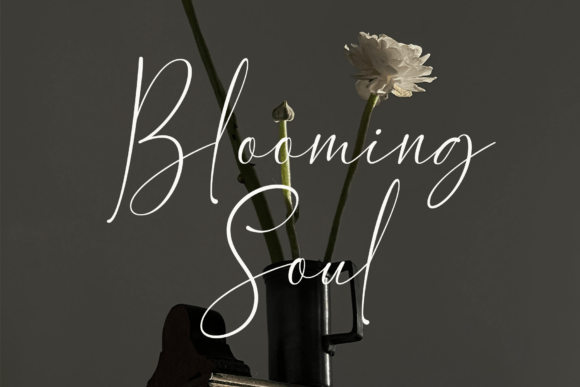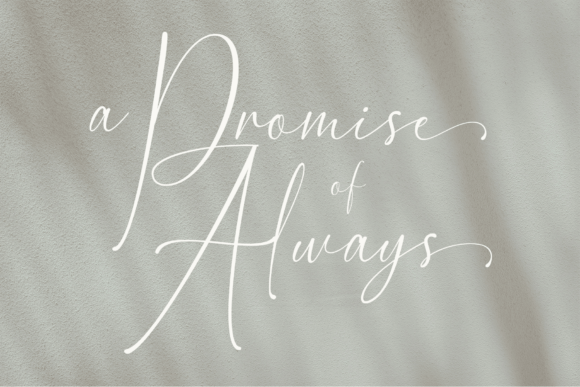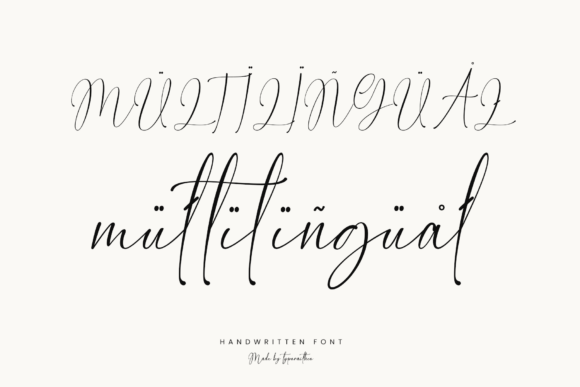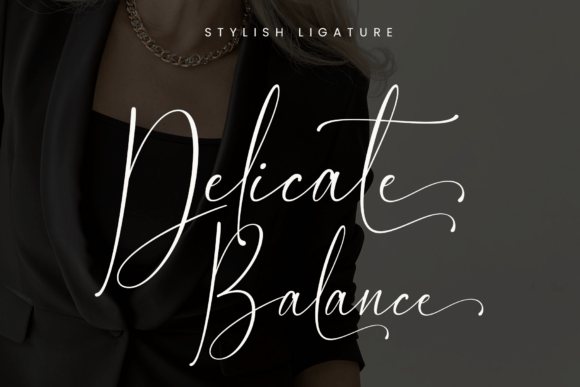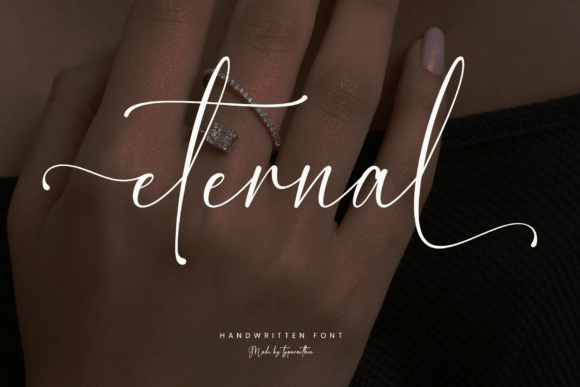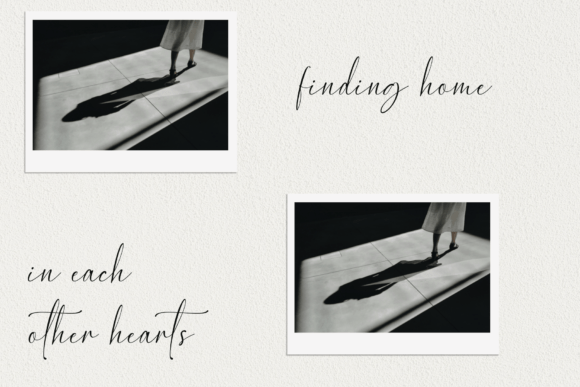
Discover the Timeless Elegance of Faith Claire Font
Are you looking for a font that embodies the perfect blend of elegance and femininity? Look no further than Faith Claire Font. This beautiful handwritten typeface has been making waves in the design world with its delicate strokes and graceful letterforms. In this article, we’ll dive into the world of Faith Claire Font and explore its features, uses, and benefits for designers and crafters.
The Beauty of Faith Claire Font
Faith Claire Font is a stunning example of a handwritten typeface that exudes timeless elegance and feminine charm. Its delicate strokes and flowing letterforms make it perfect for designs that require a personal and elegant feel. The font’s gentle curves and refined lines give it a sophisticated look that’s hard to resist. Whether you’re designing a wedding invitation, a logo, or a greeting card, Faith Claire Font is sure to add a touch of class and sophistication to your project.
Features of Faith Claire Font
- Delicate Strokes: Faith Claire Font features delicate strokes that give it a light and airy feel. The strokes are smooth and flowing, making it perfect for designs that require a gentle touch.
- Graceful Letterforms: The letterforms in Faith Claire Font are elegant and refined, with a subtle flair at the terminals that adds to their sophistication.
- Feminine Charm: Faith Claire Font has a distinctly feminine charm that’s perfect for designs that require a touch of elegance and poise.
- Timeless Elegance: The font’s classic look and feel make it a timeless choice for designs that require a sophisticated and elegant feel.
Uses of Faith Claire Font
Faith Claire Font is a versatile typeface that can be used for a wide range of design projects. Here are some of the most popular uses of this beautiful font:
- Wedding Invitations: Faith Claire Font is perfect for wedding invitations, with its elegant and refined look that’s sure to impress.
- Branding and Logos: The font’s sophisticated look and feel make it a great choice for branding and logos that require a touch of elegance.
- Greeting Cards: Faith Claire Font is ideal for greeting cards, with its delicate strokes and flowing letterforms that add a personal touch to any design.
- Quotes and Typography: The font’s elegant look and feel make it perfect for quotes and typography designs that require a sophisticated and refined feel.
Benefits of Using Faith Claire Font
So why should you choose Faith Claire Font for your design projects? Here are some of the benefits of using this beautiful typeface:
- Elegant and Refined: Faith Claire Font adds a touch of elegance and sophistication to any design, making it perfect for projects that require a refined look and feel.
- Versatile: The font’s versatility makes it suitable for a wide range of design projects, from wedding invitations to branding and logos.
- Easy to Read: Faith Claire Font is easy to read, even at small sizes, making it perfect for designs that require a clear and legible font.
- Unique: The font’s unique look and feel set it apart from other typefaces, making it a great choice for designers who want to create something truly special.
Tips for Using Faith Claire Font
Here are some tips for using Faith Claire Font in your design projects:
- Pair it with a Bold Font: Pair Faith Claire Font with a bold font to create a striking contrast that’s sure to grab attention.
- Use it for Headings: Use Faith Claire Font for headings and titles to add a touch of elegance and sophistication to your design.
- Experiment with Colors: Experiment with different colors to find the perfect shade that complements Faith Claire Font.
- Keep it Simple: Keep your design simple and clean to let Faith Claire Font shine.
| Font Name | Faith Claire Font |
| Author | Typoraith Co |
In conclusion, Faith Claire Font is a beautiful handwritten typeface that exudes timeless elegance and feminine charm. Its delicate strokes and flowing letterforms make it perfect for designs that require a personal and elegant feel. With its versatility, ease of use, and unique look and feel, Faith Claire Font is a great choice for designers and crafters who want to create something truly special. So why not give it a try and see how it can elevate your design projects to the next level?